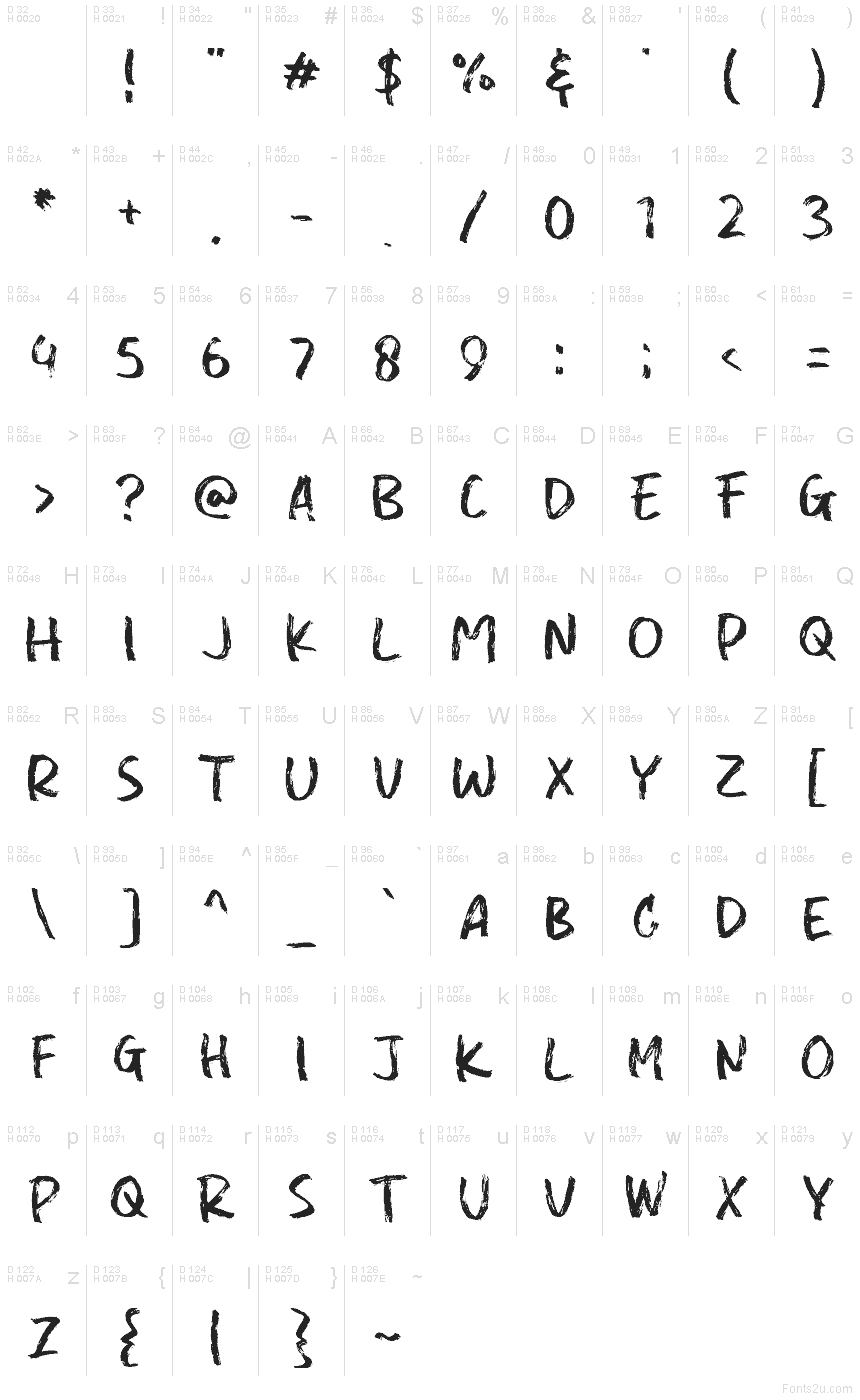
Shikiman
Shikiman font by MJType is a free brush font. It stands out with dry-brush strokes that shred through the letterforms—frayed edges, inky ridges, and streaky gaps that feel hand-slashed, not scripted. The caps sit a little wild and uneven, giving headlines a raw, kinetic punch without slipping into chaos.
Using Shikiman, you get instant attitude for gig posters, streetwear logos, horror titles, skate zines, snack packaging, and YouTube thumbnails. The rhythm is fast and spiky, so short words hit hardest, especially at large sizes. For balance, pair this free font with a clean condensed sans for subheads or captions to let the texture take center stage.